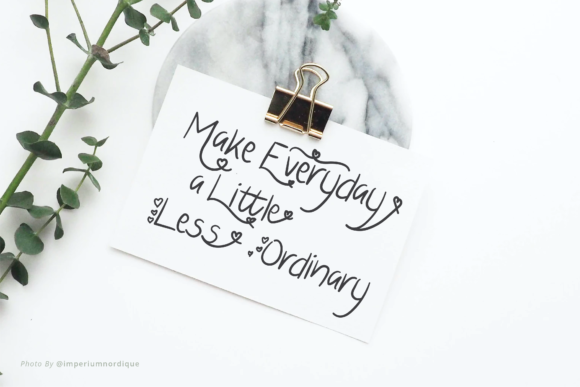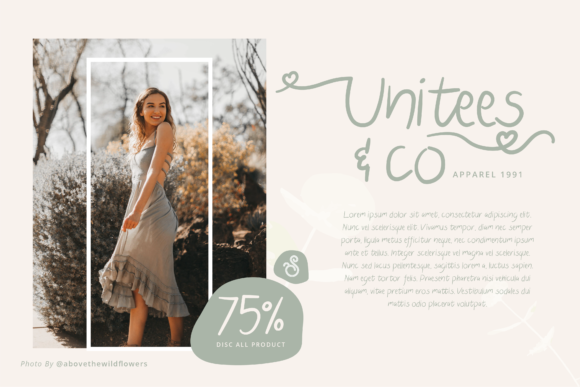
Cintaku Font
db-ku.com - Script & Handwritten -- Cintaku Handwritten is created by love and love. There has an alternates swash for completely your beauty.